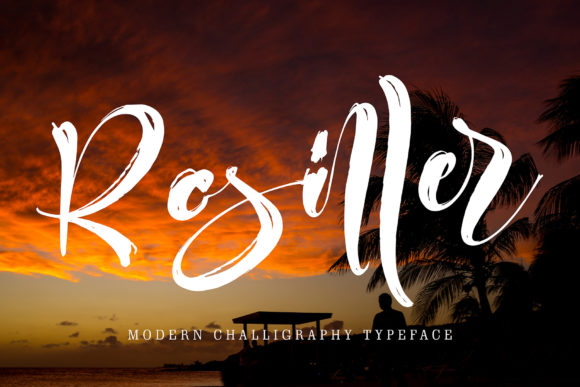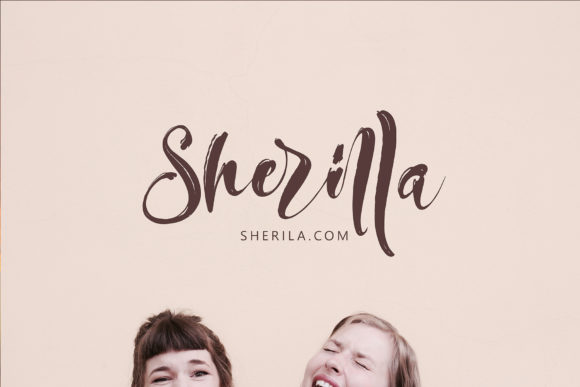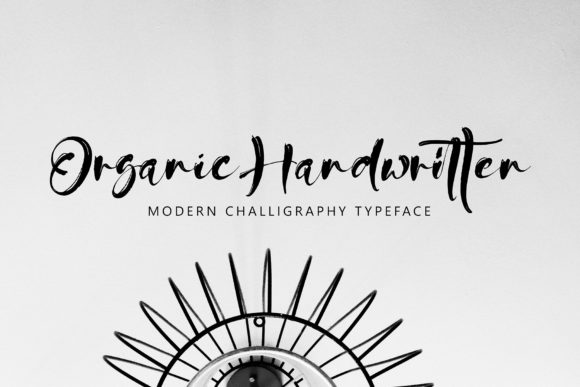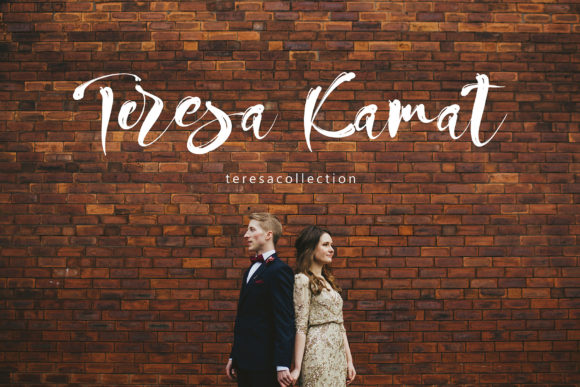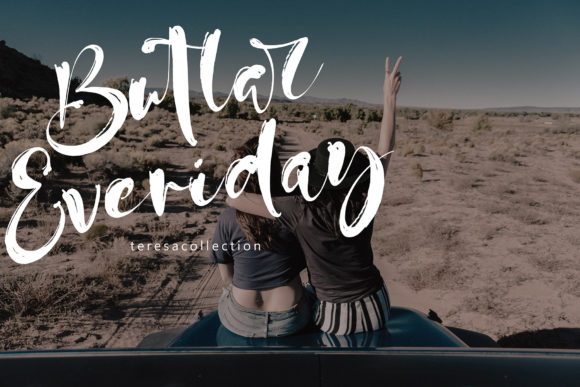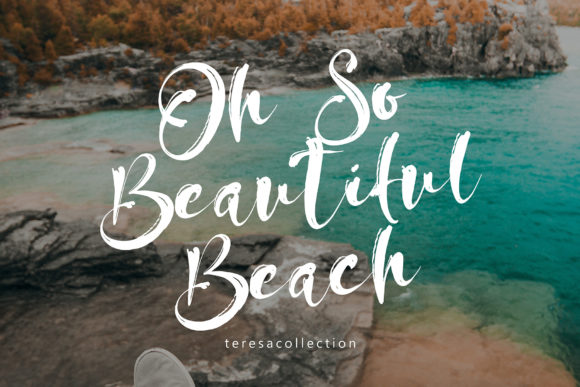
Introduction to Rosiller Font
Have you ever stared at a blank page, trying to bring a creative project to life, only to be stuck by the lack of the perfect font? That’s where the magic of Rosiller Font comes in – a luxurious and brushed handwritten font that’s sure to elevate your design game.
Designed to transport you to a world of classy calligraphy and modern charm, Rosiller Font is a true gem for designers. Its PUA encoded feature means that accessing all the glyphs and swashes is a breeze, giving you the freedom to create high-quality designs that truly stand out. Whether you’re working on a commercial project or just want to add a personal touch to your free download designs, Rosiller Font is the perfect design resource to have in your arsenal.
With its transparent background and versatile style, Rosiller Font is an invaluable addition to any designer’s toolkit, and we can’t wait to dive deeper into its features and benefits.
Key Features of Rosiller Font
- Features a clean and modern design, suitable for a wide range of applications, from branding to digital art.
- Supports multiple languages and characters, making it a versatile font for international projects.
- Designed with precision and attention to detail, resulting in a crisp and clear display on various screens and printing materials.
Honest Review: Rosiller Font
- ✨ Unique and modern design: The Rosiller Font has a distinctive style that sets it apart from other fonts. Its clean lines and elegant curves make it perfect for a variety of creative projects.
- ✨ High-quality glyphs: The font includes a wide range of glyphs, including Latin, Cyrillic, and Greek alphabets. This makes it a great option for projects that require a global audience.
- ✨ Transparent background: The font’s transparent background makes it easy to use as a overlay or to add text to images.
- ⚠️ Limited font weights: While the font includes a range of styles, it could benefit from additional font weights to provide more flexibility for designers.
- ⚠️ No italics or bold variants: The font does not include italic or bold variants, which may limit its use in certain creative projects.
Overall, the Rosiller Font is a solid addition to any designer’s toolkit. While it has some limitations, its unique design and high-quality glyphs make it a great option for a variety of creative projects. I’d recommend giving it a try and seeing how it fits into your design workflow.
Getting the Most Out of Rosiller Font
For the best results, use the Rosiller Font in conjunction with a clear and simple design. This will help to ensure that the font is legible and easy to read.
The Rosiller Font is perfect for a wide range of creative projects, including:
– Presentations
– Documents
– Branding materials